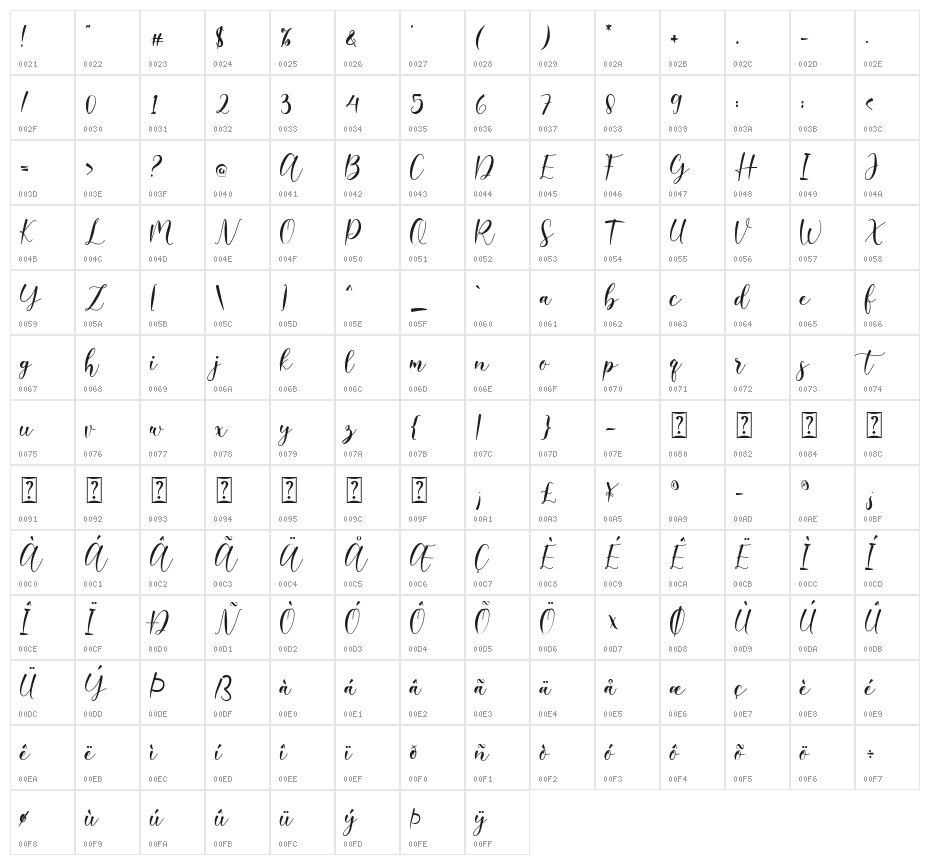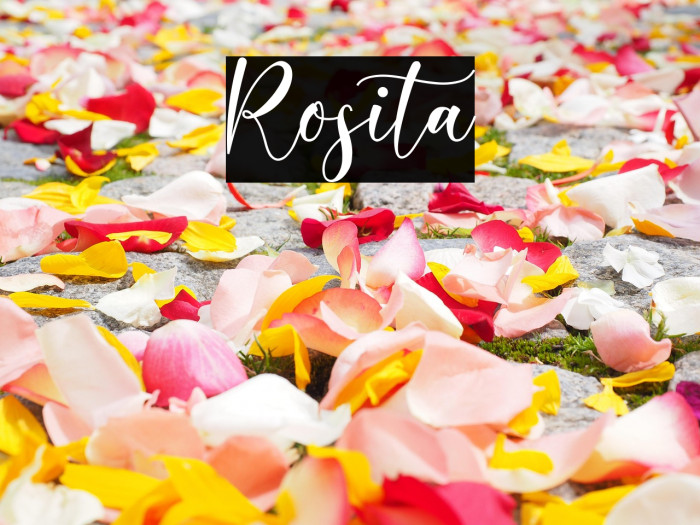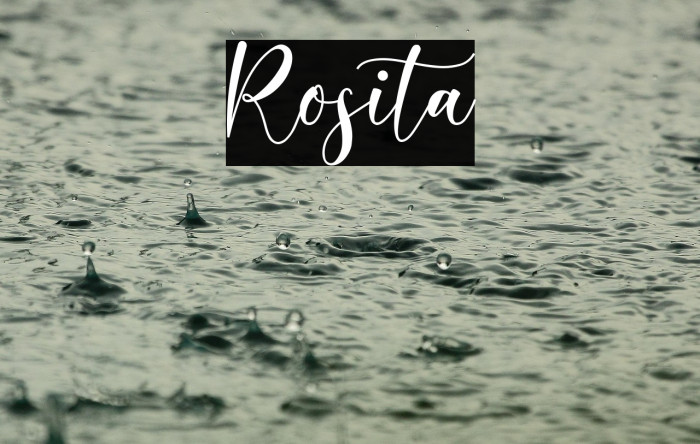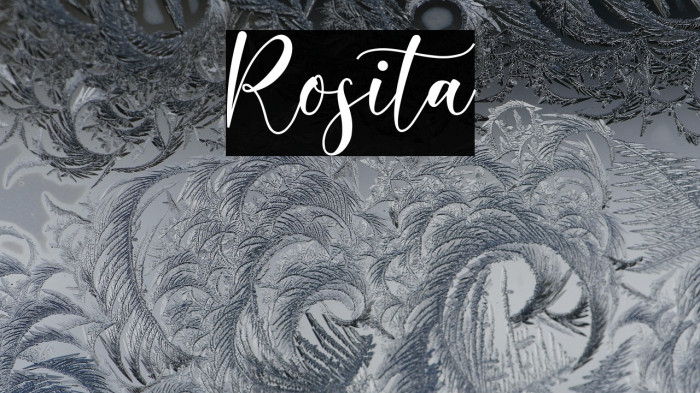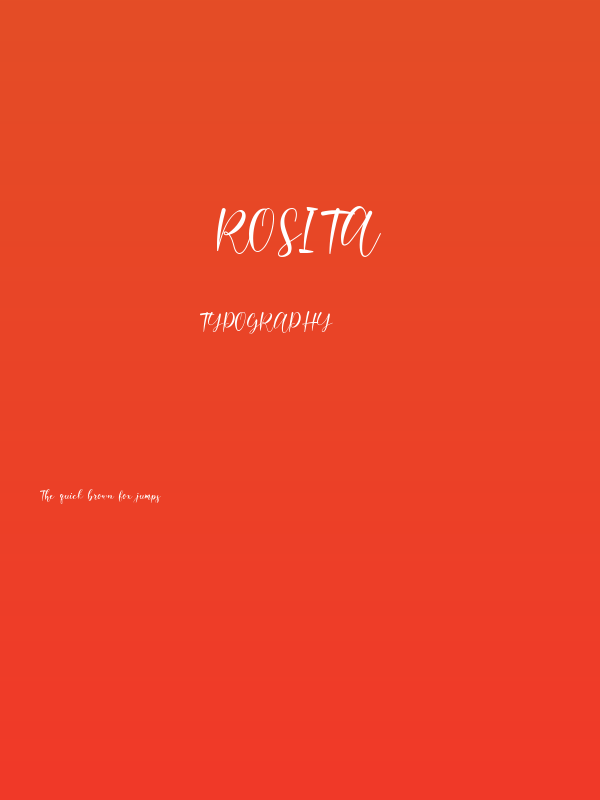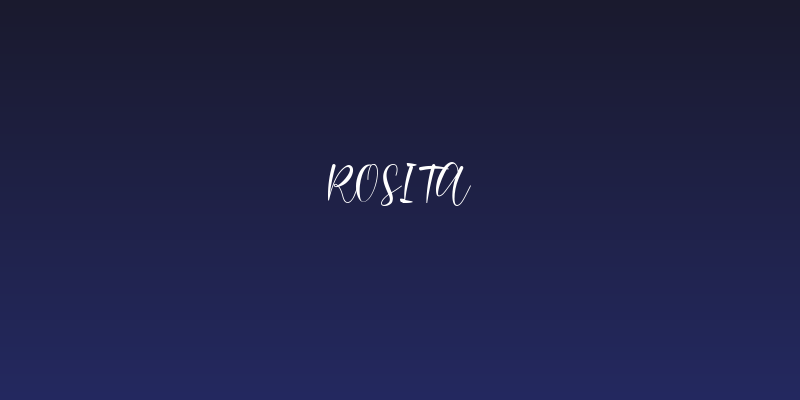
Rosita Font
Rosita Description
A flowing, cursive script font with elegant, hand-drawn letterforms and varying stroke thickness, featuring high contrast and decorative swashes. The characters are connected or closely spaced, giving a handwritten, calligraphic appearance.
| Overall Style | Decorative, Handwritten, Elegant |
| Use Case | Logos, Invitations, Headlines, Decorative text |
| Proposed Projects | Wedding invitations, greeting cards, branding, logos, social media graphics, event posters. |